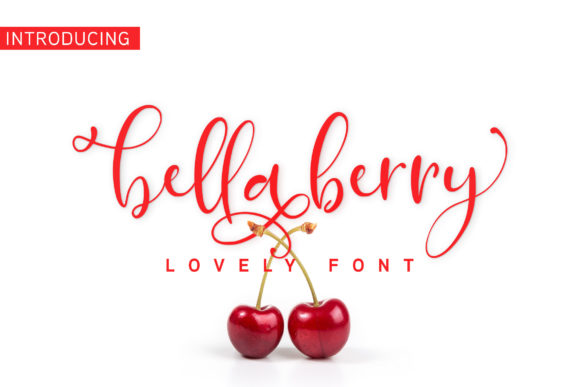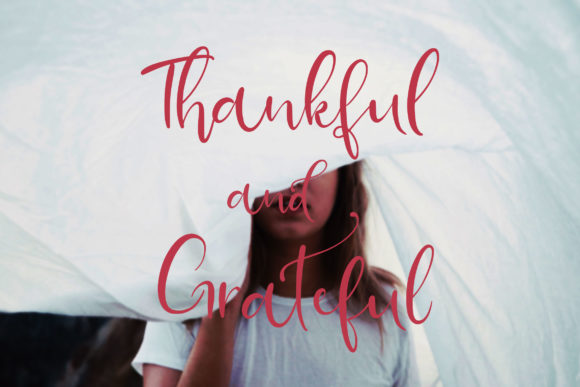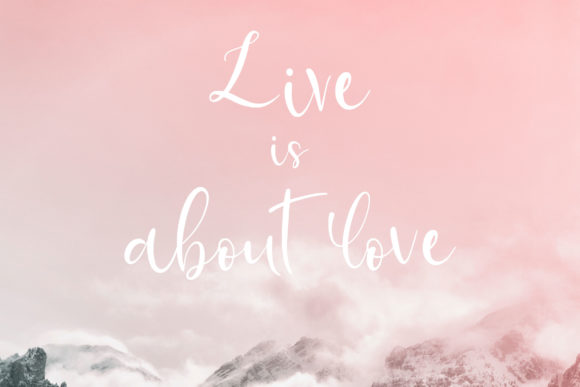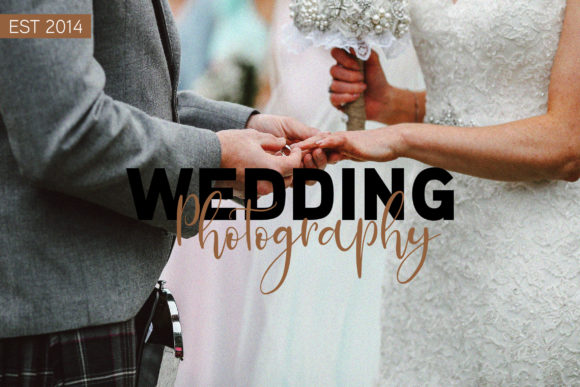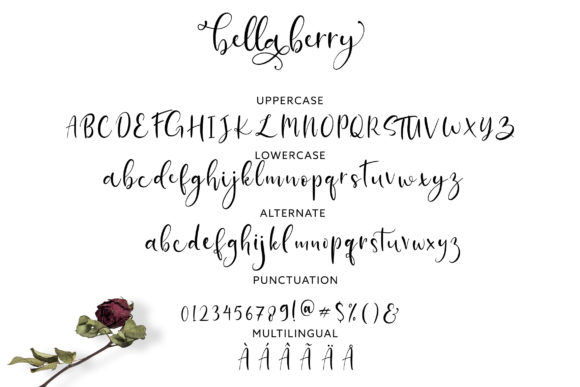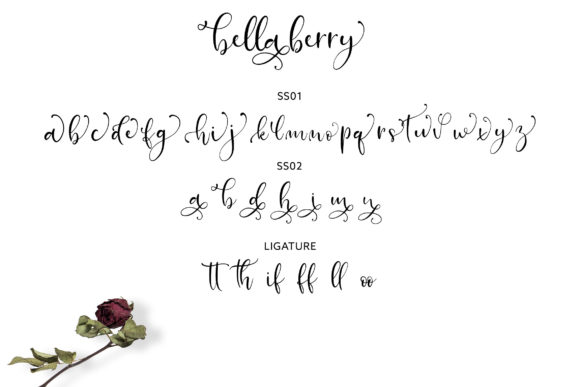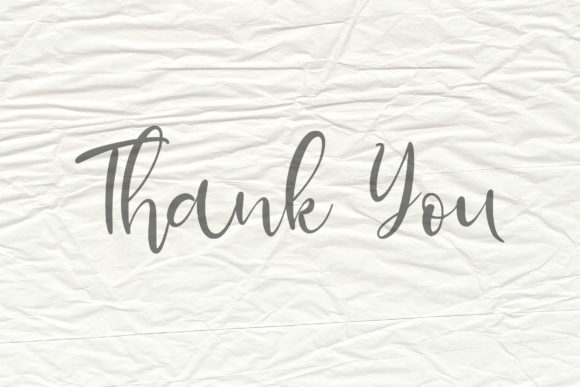
Bella Berry Font
About Bella Berry Font
Bella Berry is a lovely script featuring uppercase and lowercase letters, multilingual symbols, numerals, punctuation and, on top of everything else, pretty lowercase swashes. Use it to add some romantic charm to invitation cards, branding, stationery designs, birthday designs, quotes, crafts or anything else that needs an authentic and playful twist.